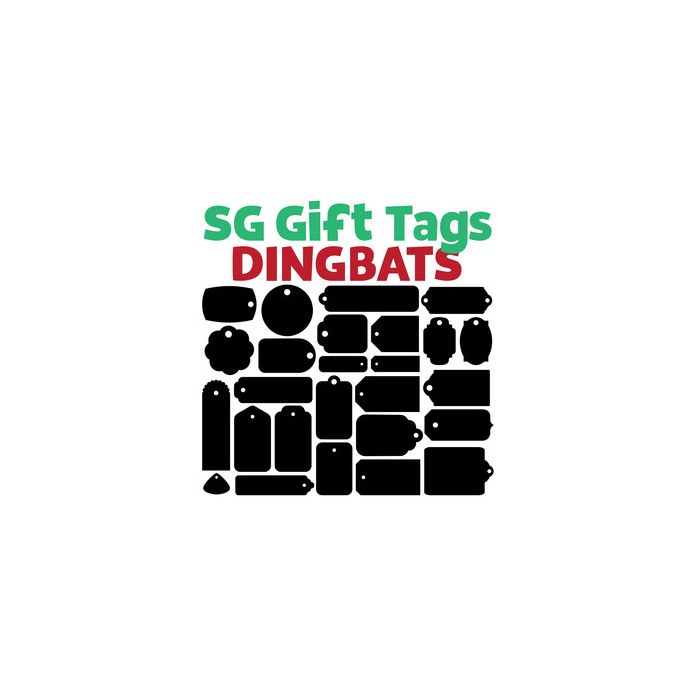
sg gift tags dingbats font
This fun dingbat font has 26 gift tag icons that you can type + cut. For ideas and inspiration visit my blog at http://sophiegallo.blogspot.com/ or visit my Facebook page at https://www.facebook.com/sgallodesign